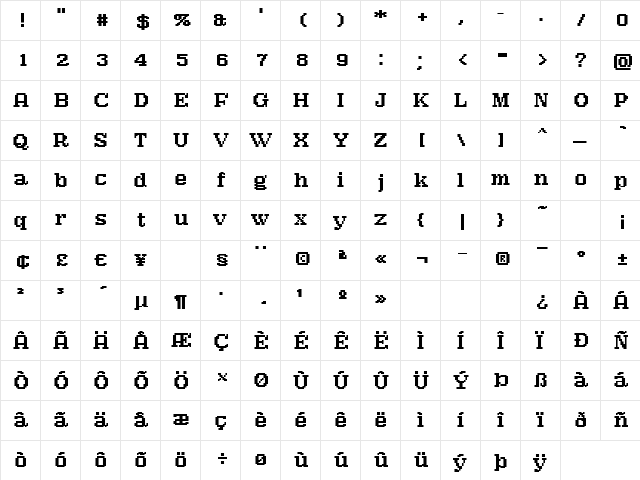
AtlantisTextBold Regular
Design Context for AtlantisTextBold Typeface
AtlantisTextBold is a composed and adaptable typeface that performs quietly and consistently across a wide range of design contexts. The heavy weight commands attention and anchors typographic hierarchies.